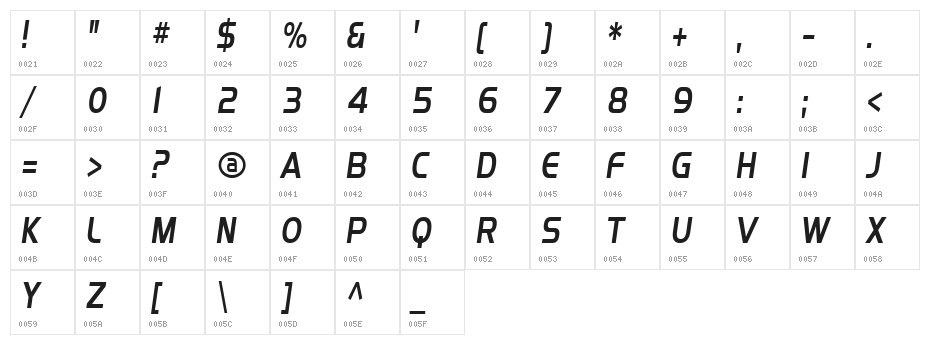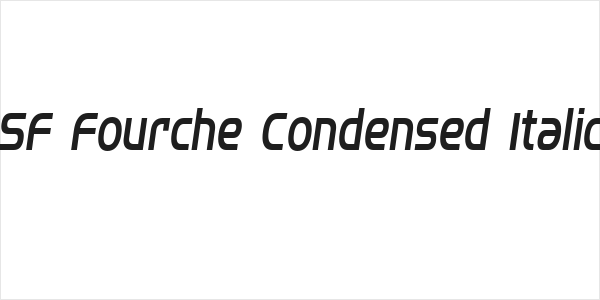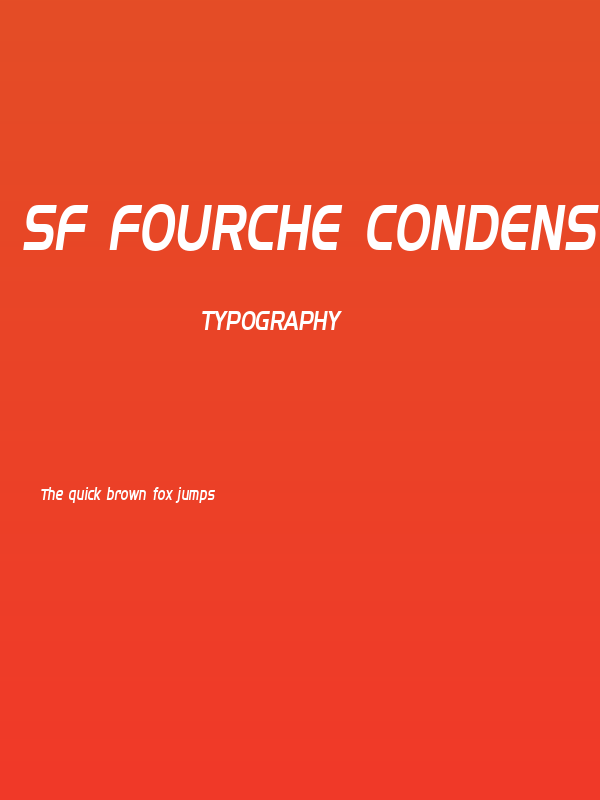
SF Fourche Condensed Italic Font
SF Fourche Condensed Italic Description
This font features a sleek, modern design with a condensed and italicized style. The characters are slightly slanted, giving a dynamic and forward-moving appearance. The strokes are consistent in width, providing a uniform look across all characters. The uppercase letters are bold and assertive, while the lowercase letters maintain a smooth and flowing form. The numerals are clear and easy to read, matching the overall aesthetic of the font. Special characters are well-integrated, maintaining the font's cohesive style. This font is ideal for projects that require a contemporary and professional look.